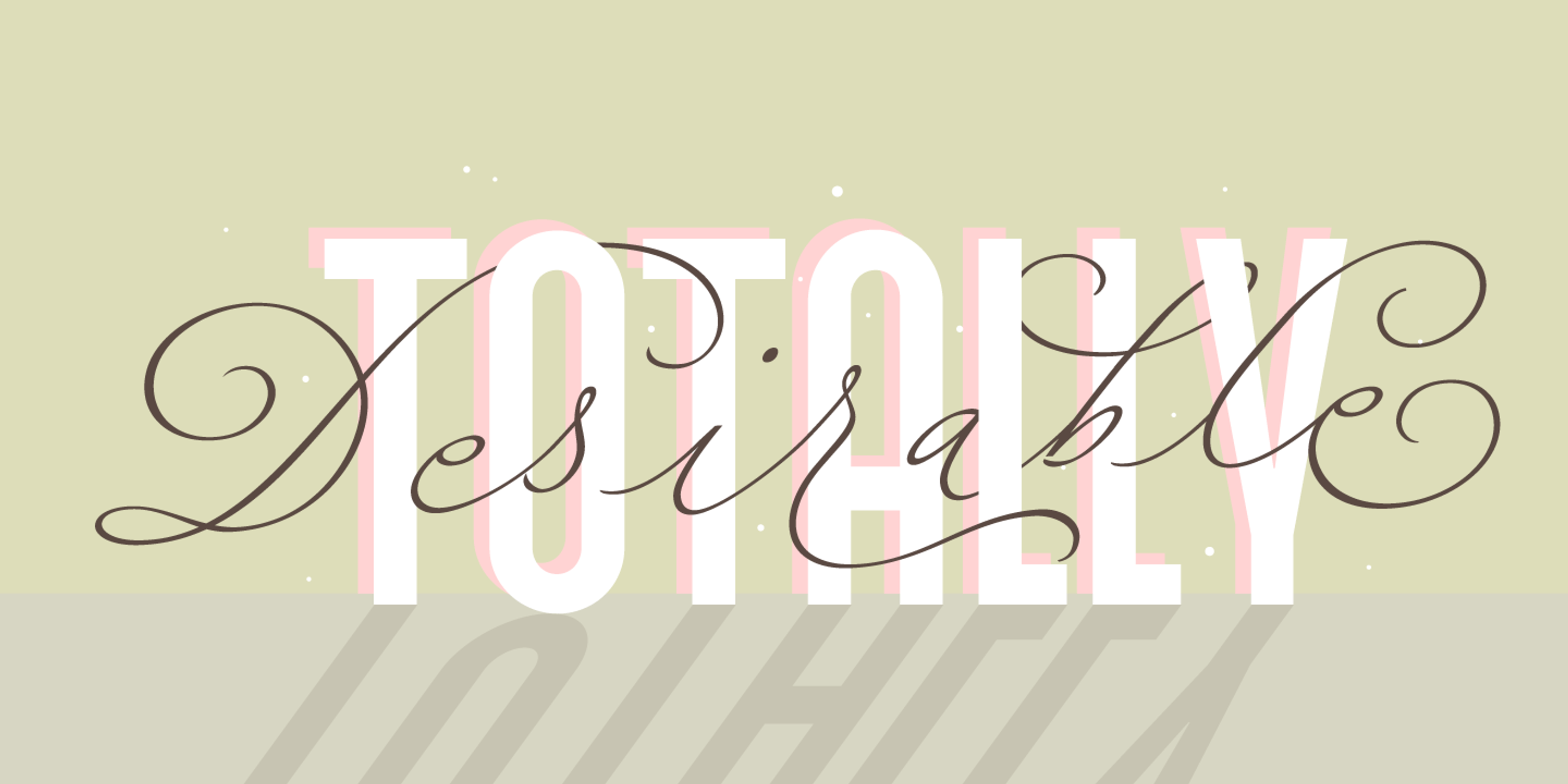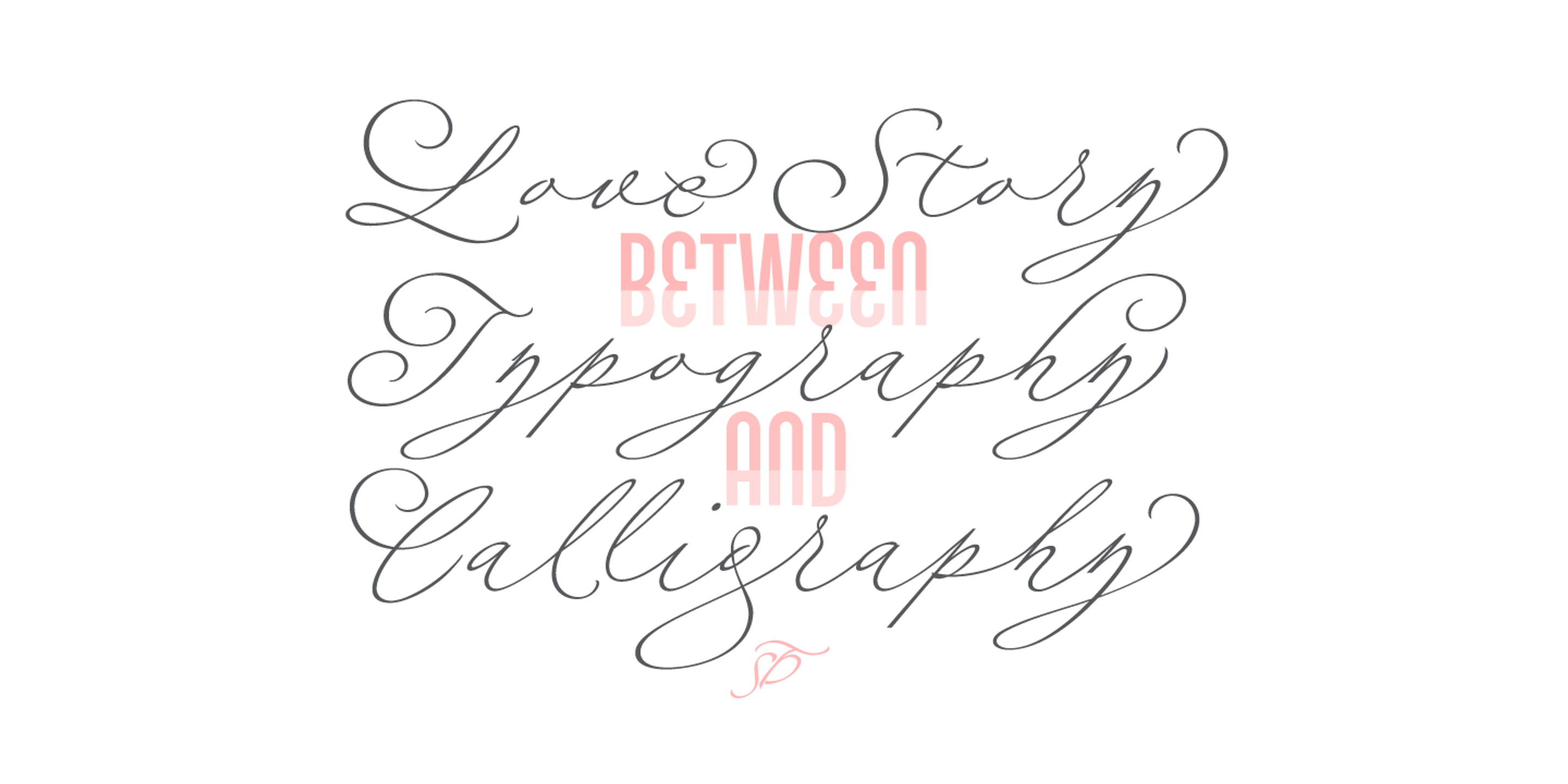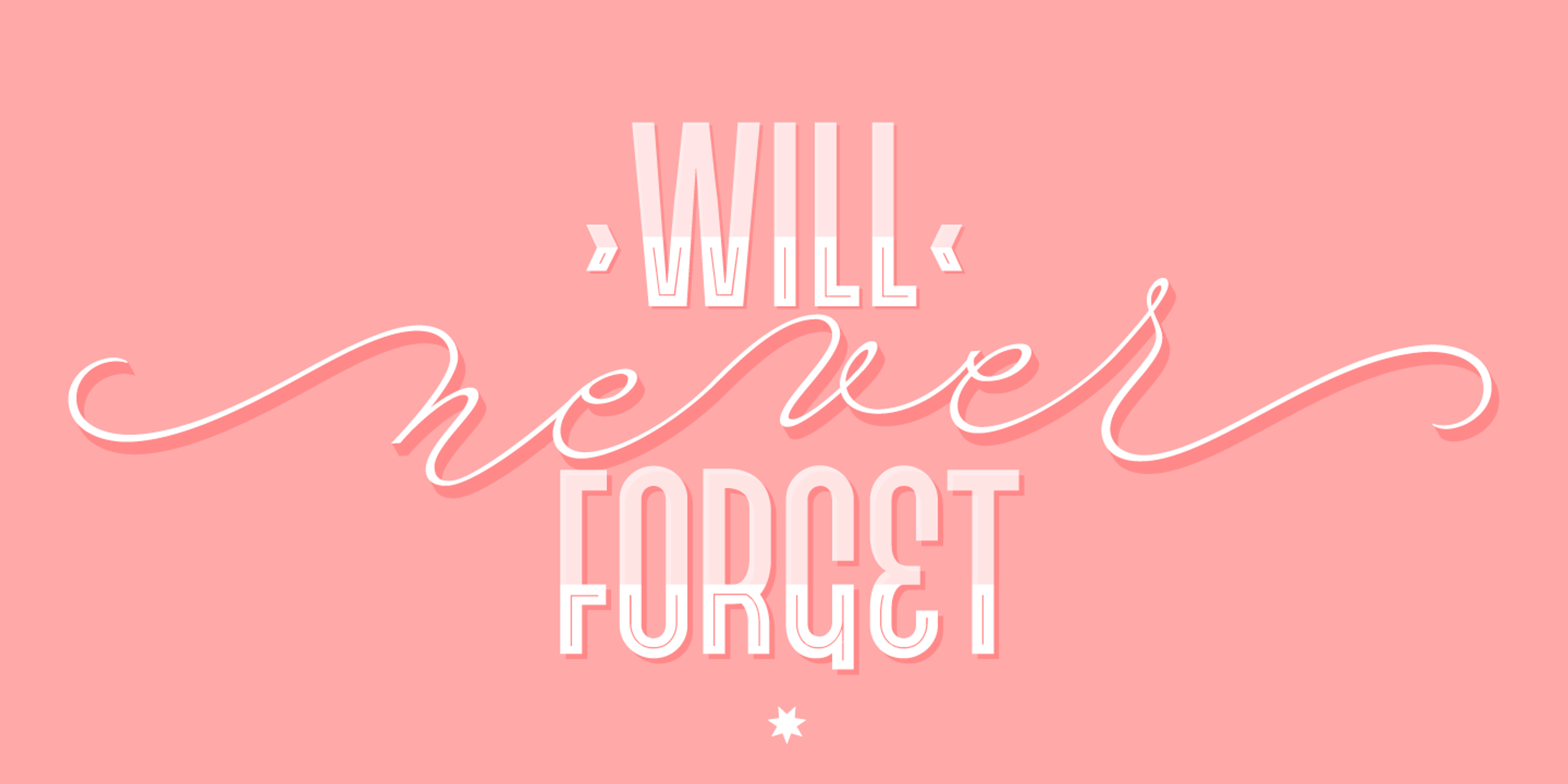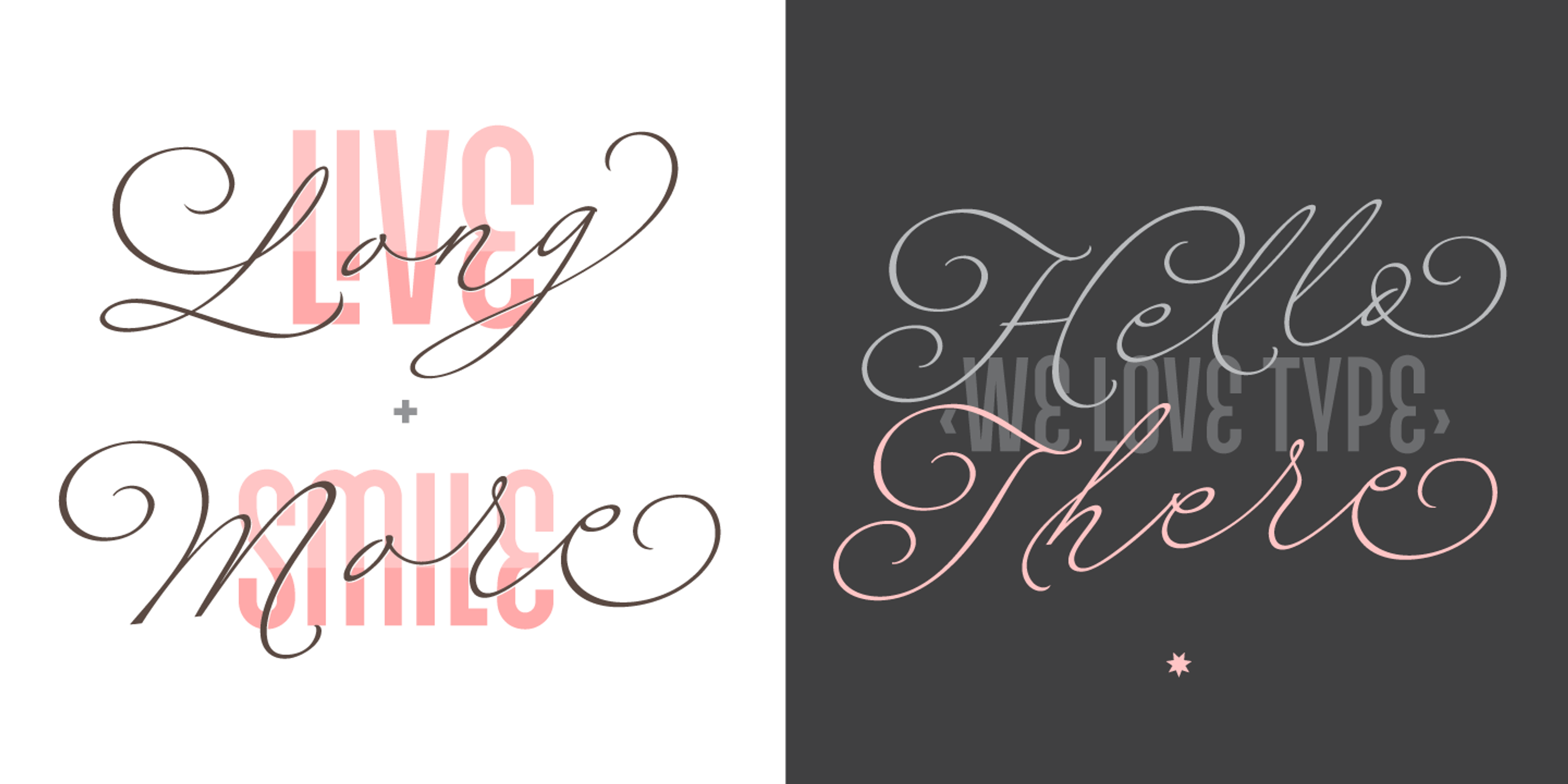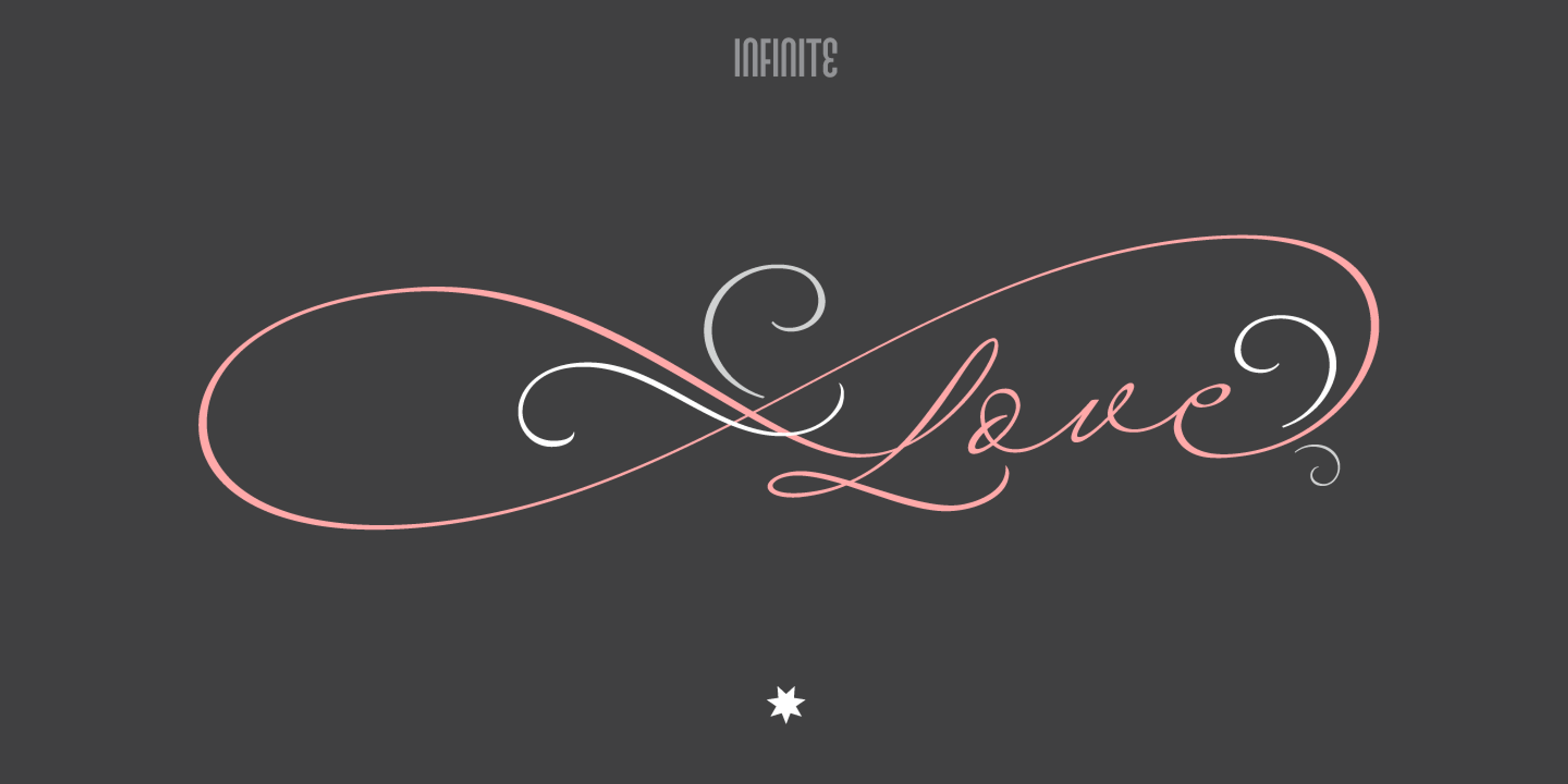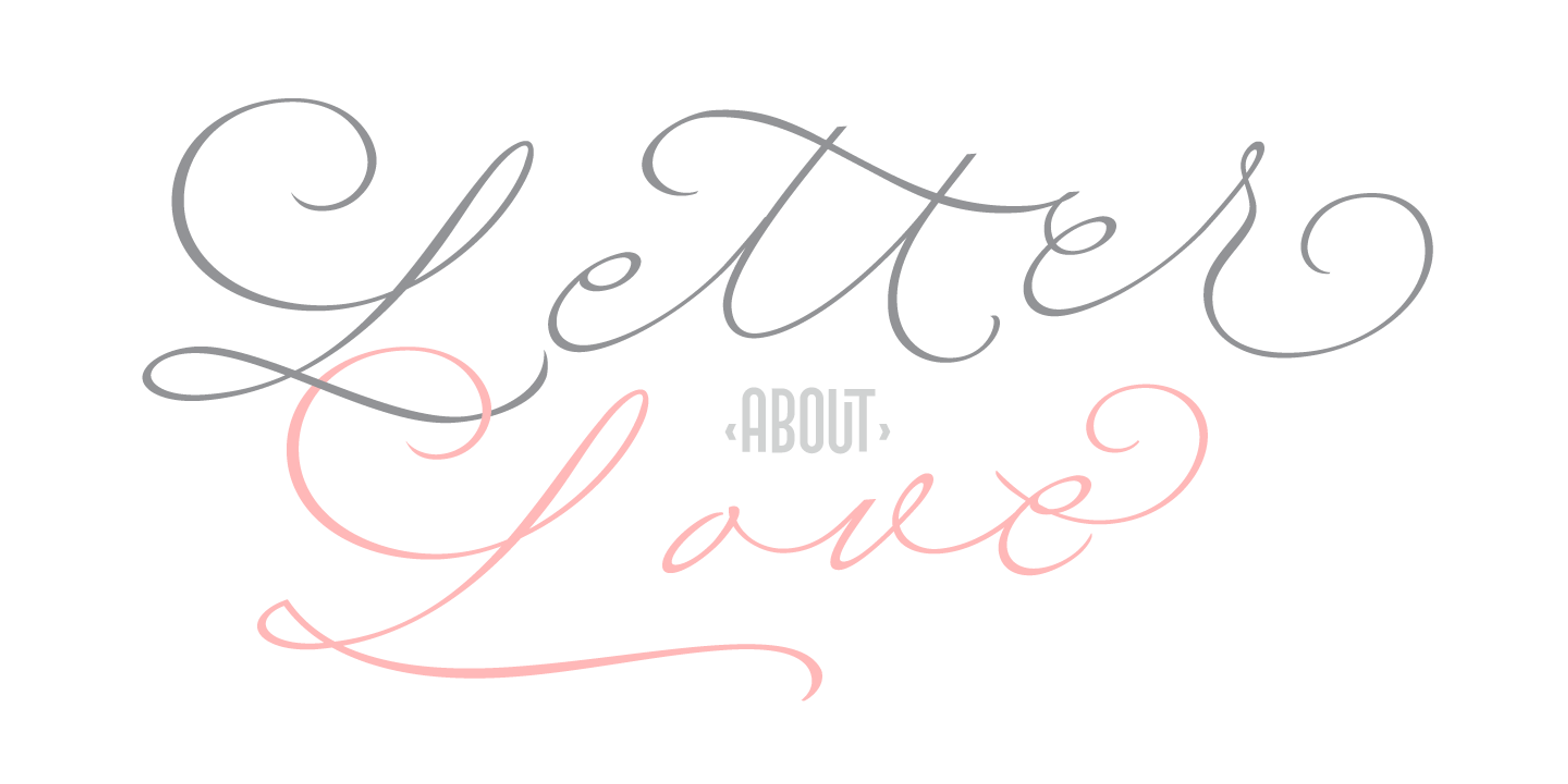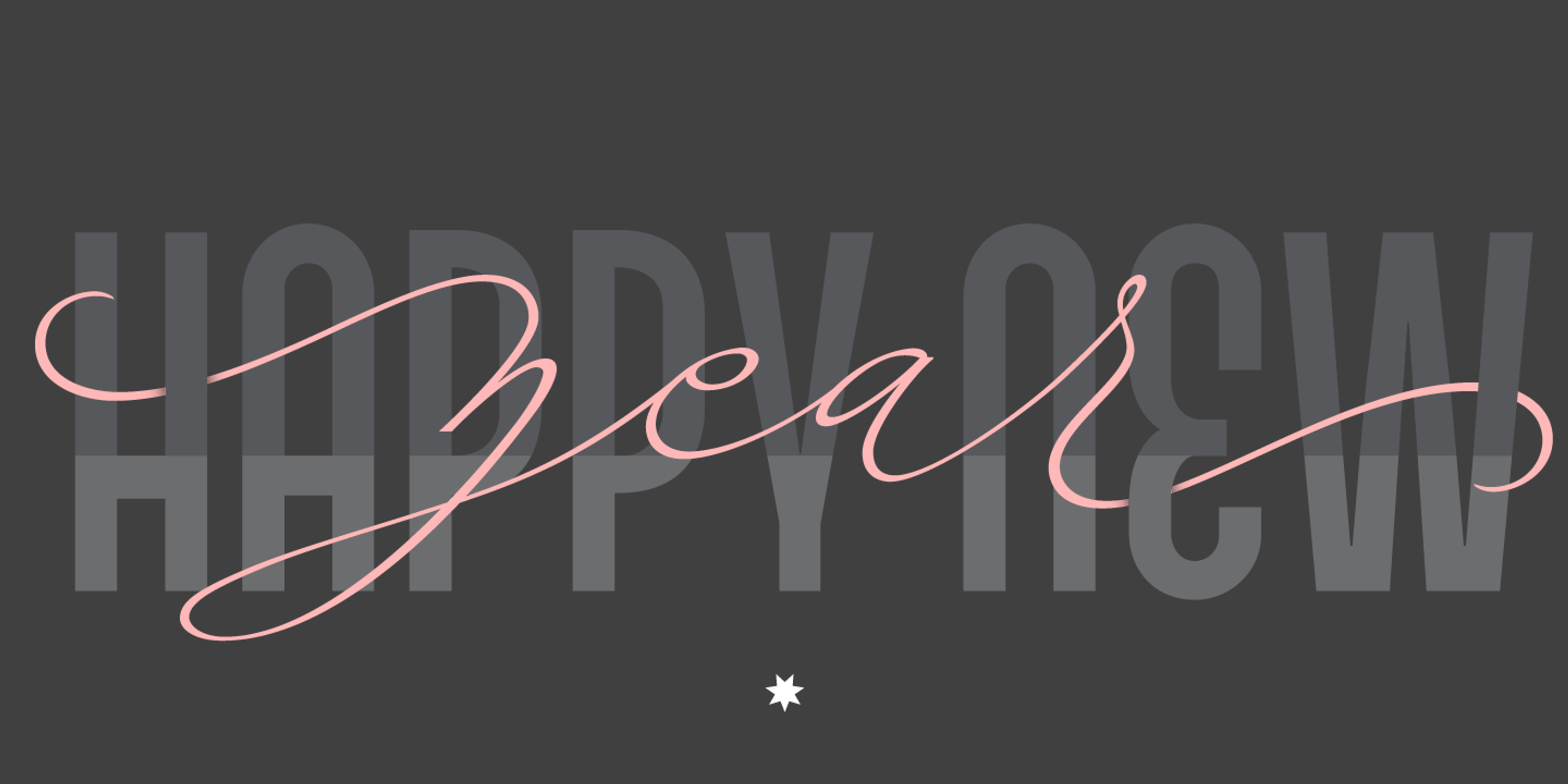
Fluire Caps
Fluire Caps Down
Fluire Caps Down Lines
Fluire Caps Up
Fluire Script Regular
About the font
Fluire Details
Fluire is a soft, minimal script inspired by tattoos, handwritten notes, and the beauty of going with the flow. Named after the Italian word fluire, meaning to flow, it captures that sense of ease and quiet movement. With nearly monoline style, it pairs effortlessly with its companion Art Deco-like Fluire Caps, available in playful variations like Up, Down, and Down Lines. Use it for wedding stationery, heartfelt cards, packaging, book covers — or, of course, tattoos.